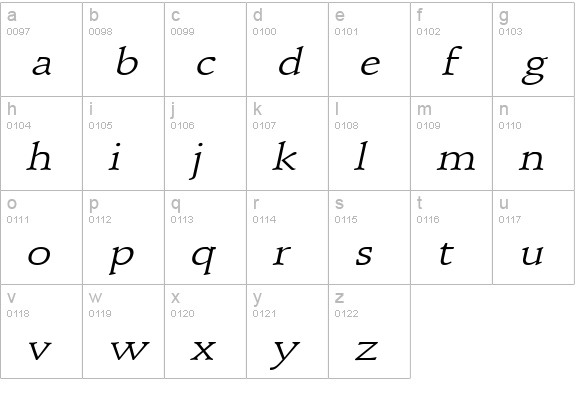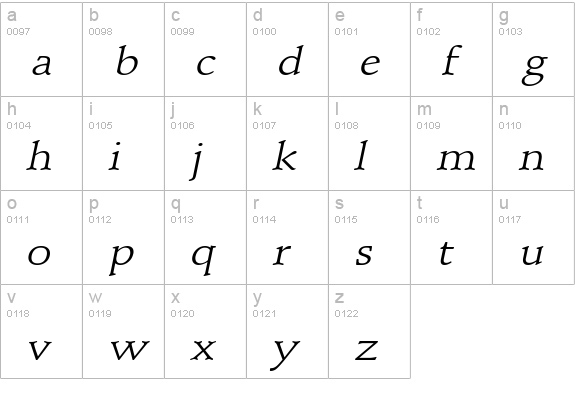
Schroeder Wide Italic is a distinctive, extended-width, italic variant in the Schroeder typeface family \xE2\x80\x94 well suited to design and typography projects.
Schroeder Wide Italic font is a captivating and stylish typeface that adds a touch of elegance to any design project. Its unique italicized form exudes a sense of sophistication and modernity, making it perfect for both formal and creative applications. With its wide proportions, Schroeder Wide Italic font commands attention and effortlessly stands out among other typefaces. The slanted letters create a dynamic and energetic rhythm, adding a sense of movement and liveliness to your designs. Whether used for headlines, logos, or invitations, this font is sure to make a lasting impression. One of the most appealing aspects of Schroeder Wide Italic font is that it is freely available to download at FontsMarket.com. This means that designers and enthusiasts alike can easily access and utilize this beautiful typeface without any cost. Its availability as a free download makes it a valuable asset for any project, enabling you to enhance your designs without breaking the bank. The versatility of Schroeder Wide Italic font is another noteworthy characteristic. Its italicized form adds a touch of drama and flair to any text, instantly transforming it into a visual statement. From elegant wedding invitations to eye-catching posters, this font adapts effortlessly to various design styles and themes, ensuring that your creations truly stand out from the crowd. Whether you're a professional graphic designer or a passionate hobbyist, Schroeder Wide Italic font offers a world of possibilities. Its sleek and modern design, combined with its wide proportions and italicized form, make it a versatile choice for a wide range of projects. And with its free availability at FontsMarket.com, there's no reason not to explore the endless creative potential that this font has to offer. So go ahead, download Schroeder Wide Italic font today and unleash your creativity like never before.